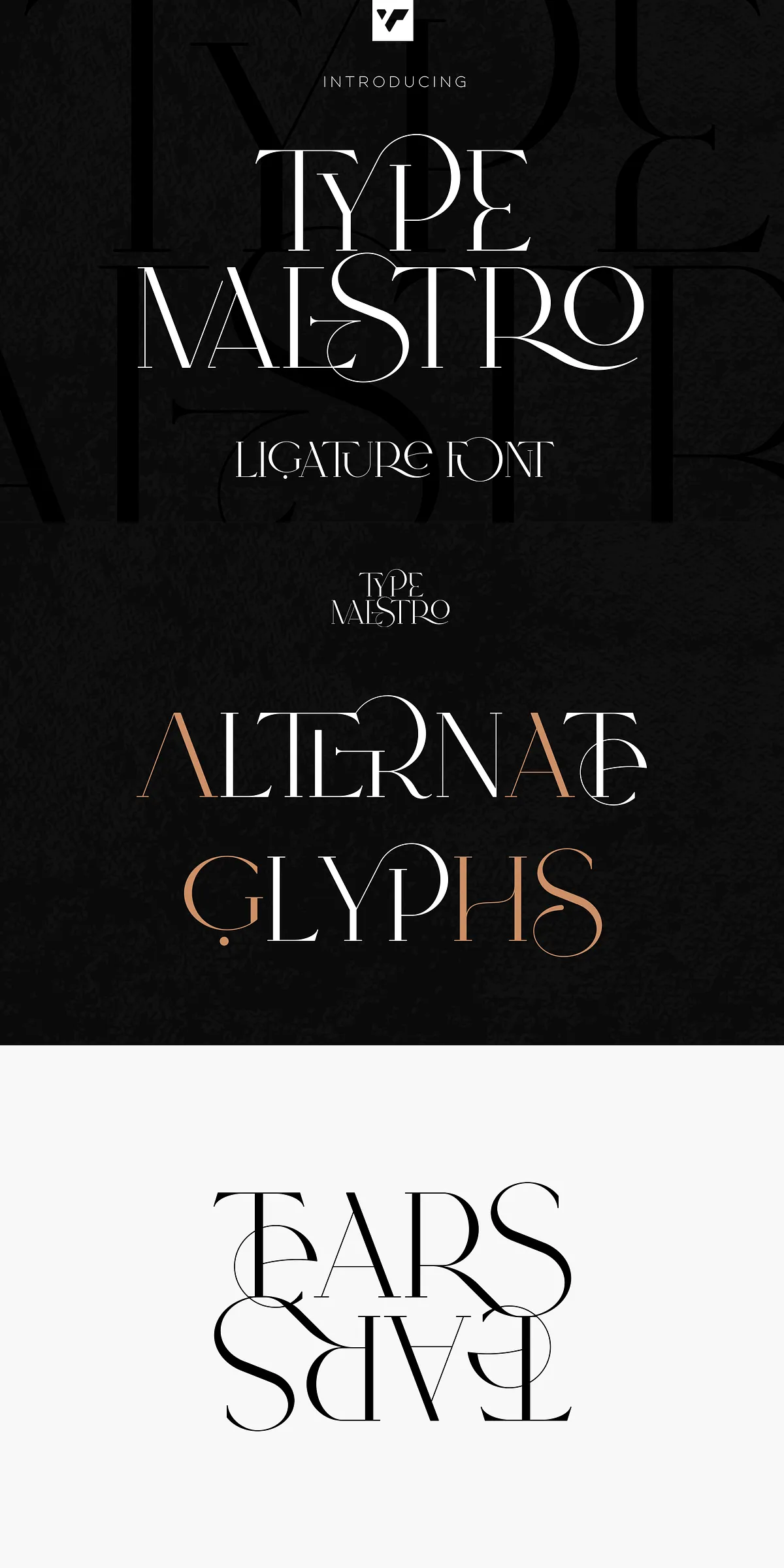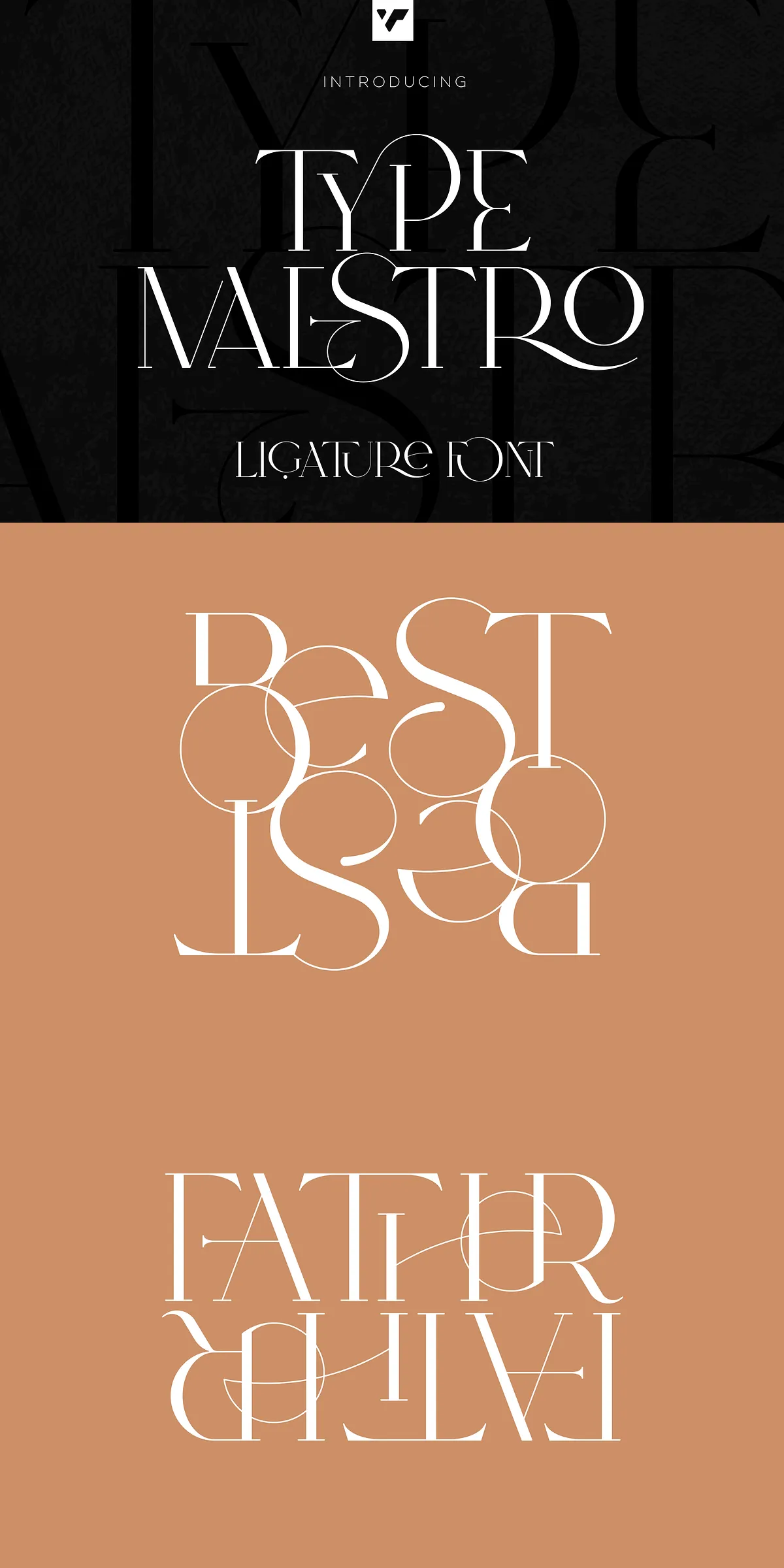
Are you ready to transform your designs from ordinary to extraordinary? Meet Type Maestro—a bold, expressive serif font engineered for designers who believe typography is more than text, it’s storytelling. With over 100 meticulously crafted ligatures and rich visual depth, Type Maestro gives your projects the finesse, flair, and personality they deserve. Whether you’re building a luxury brand identity, designing a premium website, or creating a standout social media post, this font delivers the elegance and originality that grabs attention and holds it.
Unleash the Power of 100+ Handcrafted Ligatures
Type Maestro isn’t just a font—it’s a toolkit for visual expression. Each of its 100+ ligatures has been designed to create seamless, flowing transitions between letters, eliminating awkward gaps and enhancing readability. These aren’t just decorative flourishes—they’re strategic typographic tools that elevate your layout from functional to fine art. From the classic “FO” to the dramatic “FOOD” and elegant “THE”, every ligature is a silent but powerful contributor to your design’s narrative.
Design with Precision and Character
Experience real creative freedom with Type Maestro’s dynamic alternate glyphs. These unique, stylish variations let you break the mold and craft truly one-of-a-kind text. Whether you’re setting a brand headline, a quote in a magazine layout, or a caption on Instagram, choose from alternates that bring personality, rhythm, and visual intrigue to your words.
- Alternate “A” and “S” variants for refined, modern flair
- Custom ligature sets for bold artistic impact
- Context-sensitive alternates that respond naturally to surrounding characters
These aren’t random options—they’re intelligent design decisions. Use them to guide eye movement, emphasize key words, or simply add a touch of bespoke charm.
Designed for a Global Audience
Type Maestro isn’t limited by borders. It supports an impressive 87 languages, making it ideal for international campaigns, multilingual websites, and global branding. Your design stays authentic, accurate, and stunning across cultures and regions.
Elevate Every Design Project
Here’s where Type Maestro truly shines: in real-world application. It’s not just a font—it’s a design partner that adapts to your vision.
- Logo Design: Use bold ligatures like “TOP” or “FAS” to craft memorable, distinctive brand marks.
- Website Headers & Hero Text: Let the flowing “THE” and “YOU” ligatures draw visitors in from the first glance.
- Social Media Graphics: Stand out with alternating styles that add personality and shareability to your posts.
- Print and Editorial Work: Deliver editorial-grade quality to book covers, magazine layouts, and premium catalogs.